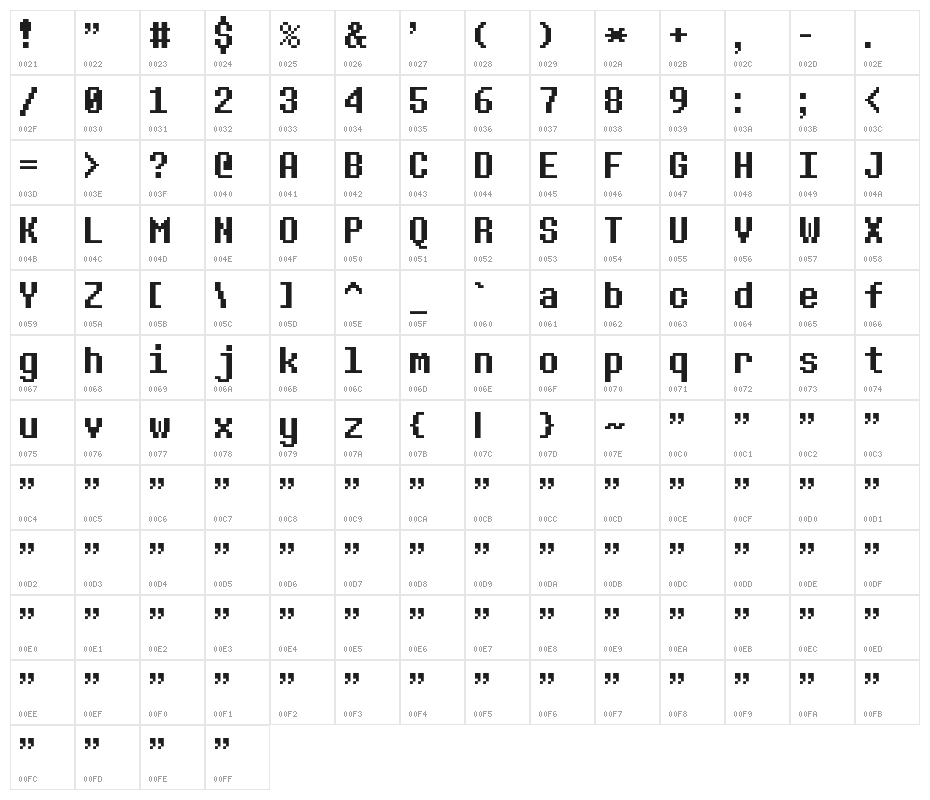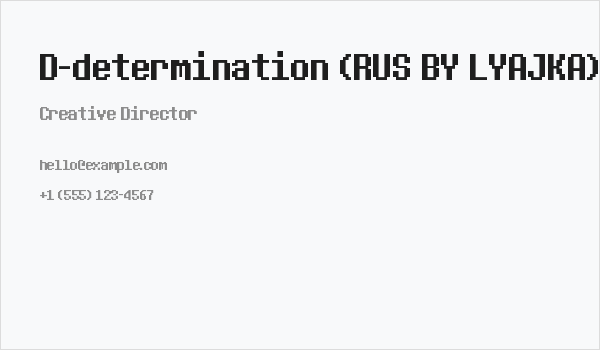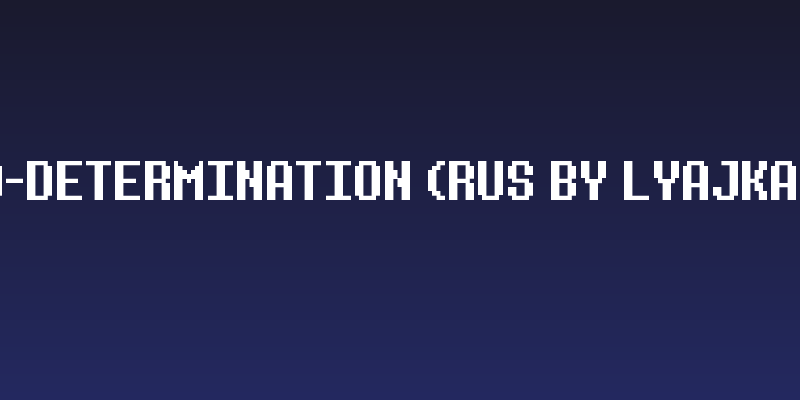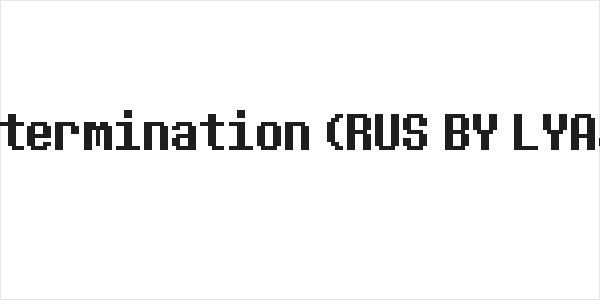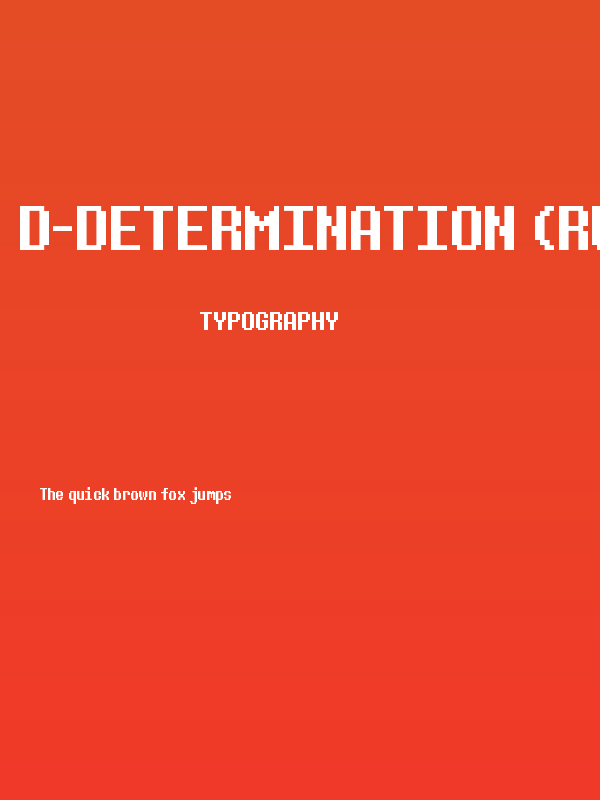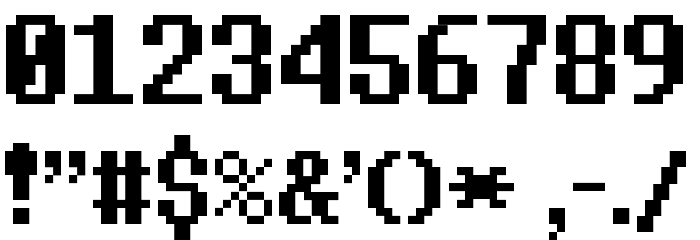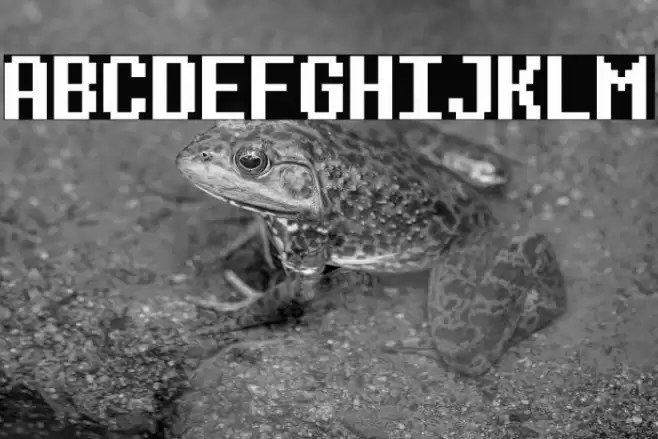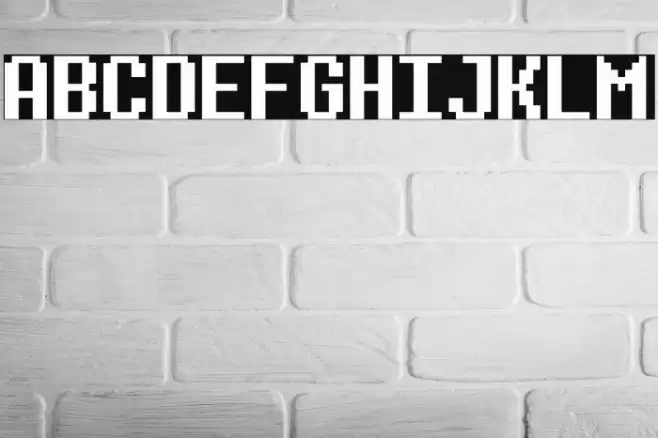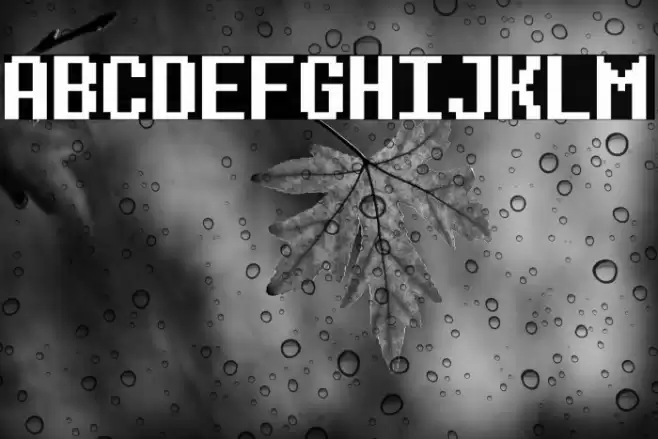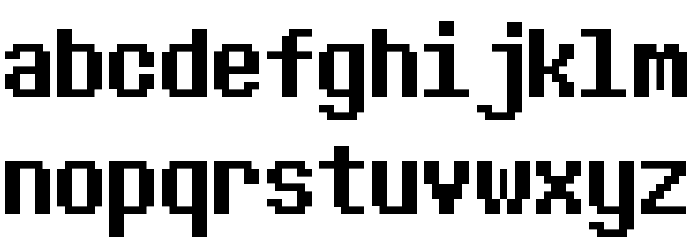
D-determination (RUS BY LYAJKA) Font
| Stil general | Retro, Digital |
| Caz de utilizare | Headlines, Logos, Digital Art |
| Proiecte propuse | Ideal for retro-themed designs, video game graphics, digital art projects, and any creative work that requires a nostalgic, pixelated look. |